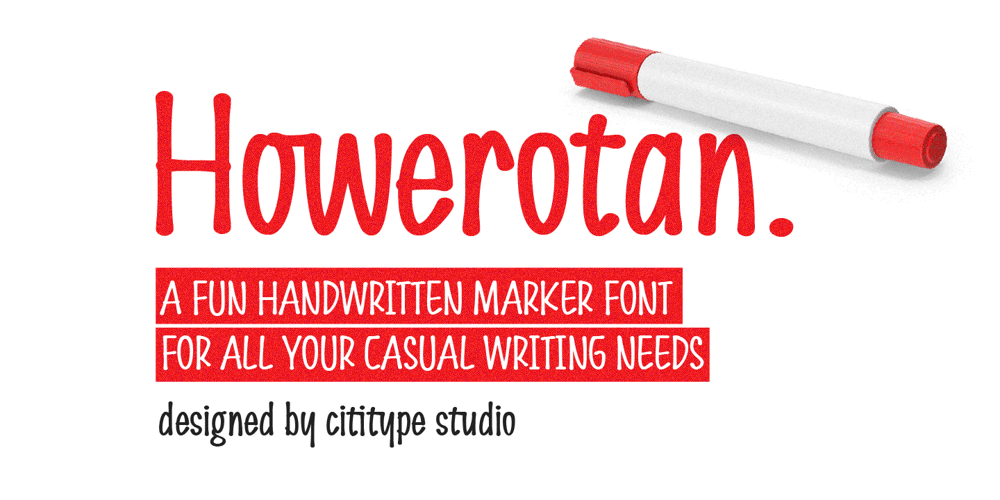
Howerotan Font Family was designed by Muhammad Ridha Agusni, Siti Saribanon Nurjannah and published by Cititype. Howerotan contains 1 styles and family package options. Howerotan is a fun and casual handwritten marker font designed to give your text a lively, personal feel. It blends a bold yet friendly look, making it perfect for casual writing needs such as note-taking, labels, and social media posts. Its playful strokes bring out a sense of personality and creativity in every character, ideal for those who want to add a warm, human touch to their designs.With both uppercase and lowercase letters, numerals, punctuation, and symbols, Howerotan offers versatility for various design purposes. Its distinct marker-like appearance makes it stand out in titles, headings, and logos, while maintaining legibility and charm. Whether you’re working on a personal project or looking for a font with an approachable feel, Howerotan provides a refreshing choice to make your text pop with style.